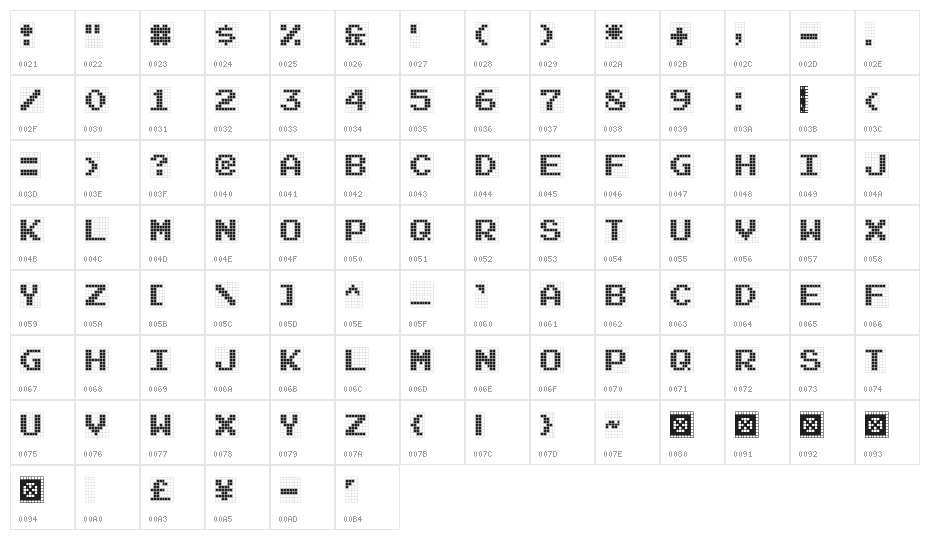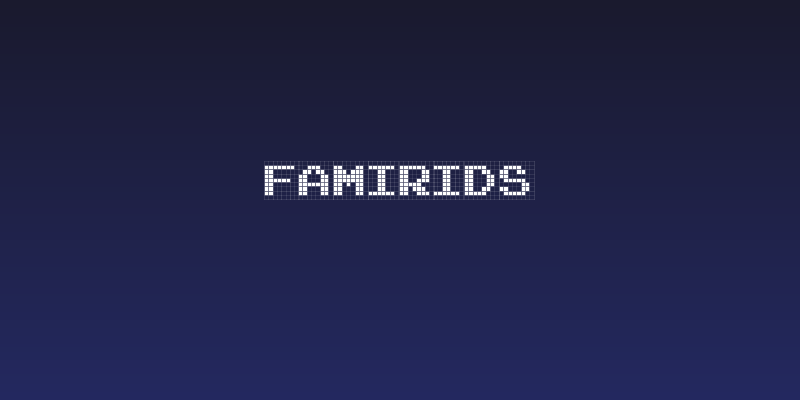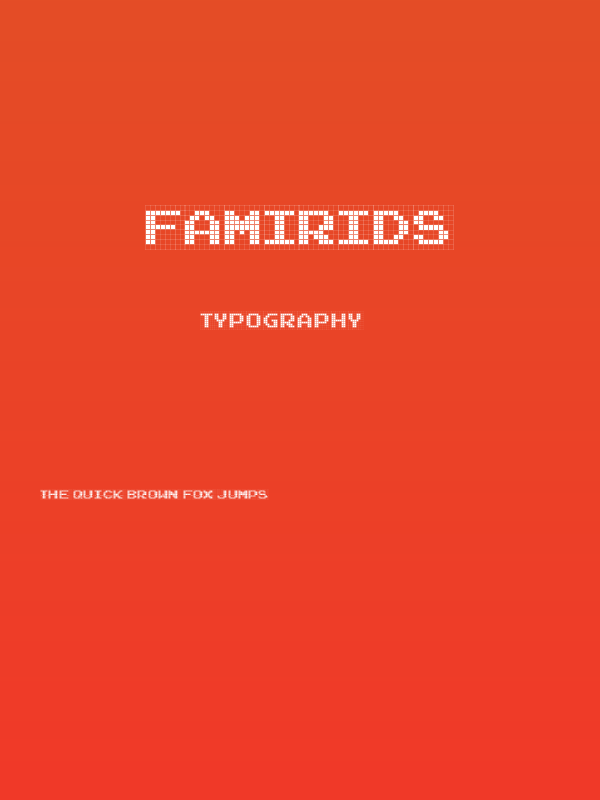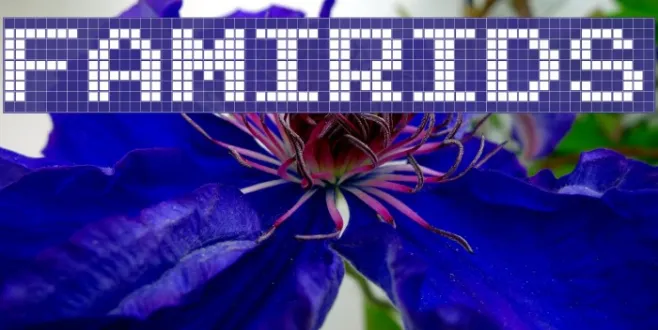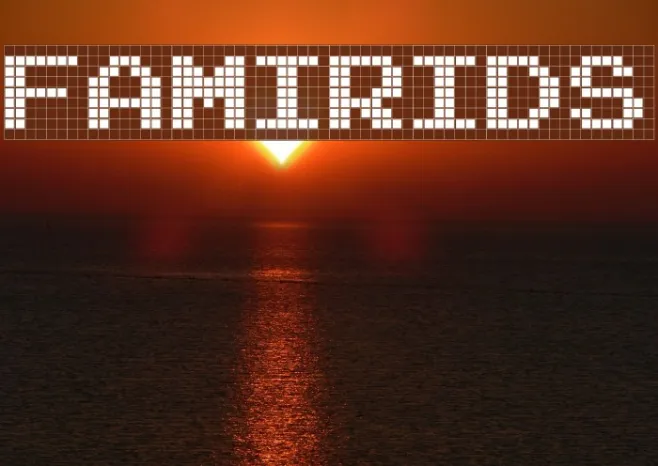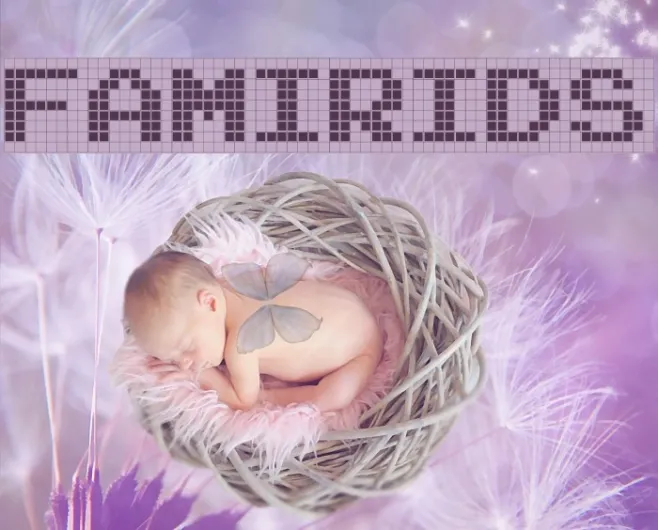
Famirids Font
Famirids Description
This font features a pixelated, grid-based design reminiscent of early digital displays and retro video games. Each character is constructed from a series of small, uniform squares, giving it a distinctly blocky and geometric appearance. The uppercase and lowercase letters maintain a consistent height, while the numerals and special characters are designed to fit seamlessly within the same grid structure. This uniformity across all characters creates a cohesive and easily readable typeface, ideal for digital and retro-themed projects.
| Overall Style | Retro, Digital |
| Use Case | Logos, Headlines, Digital Art |
| Proposed Projects | Ideal for retro video game designs, digital art projects, tech-themed posters, and any creative work that requires a nostalgic digital look. |